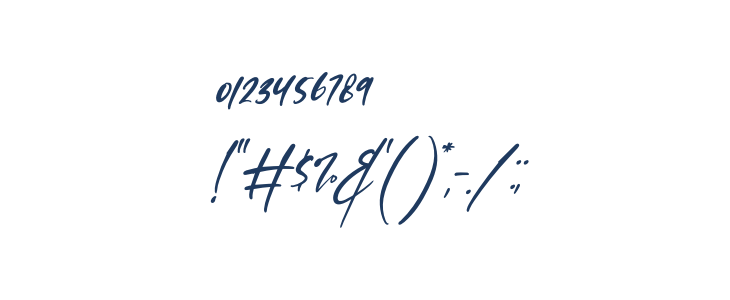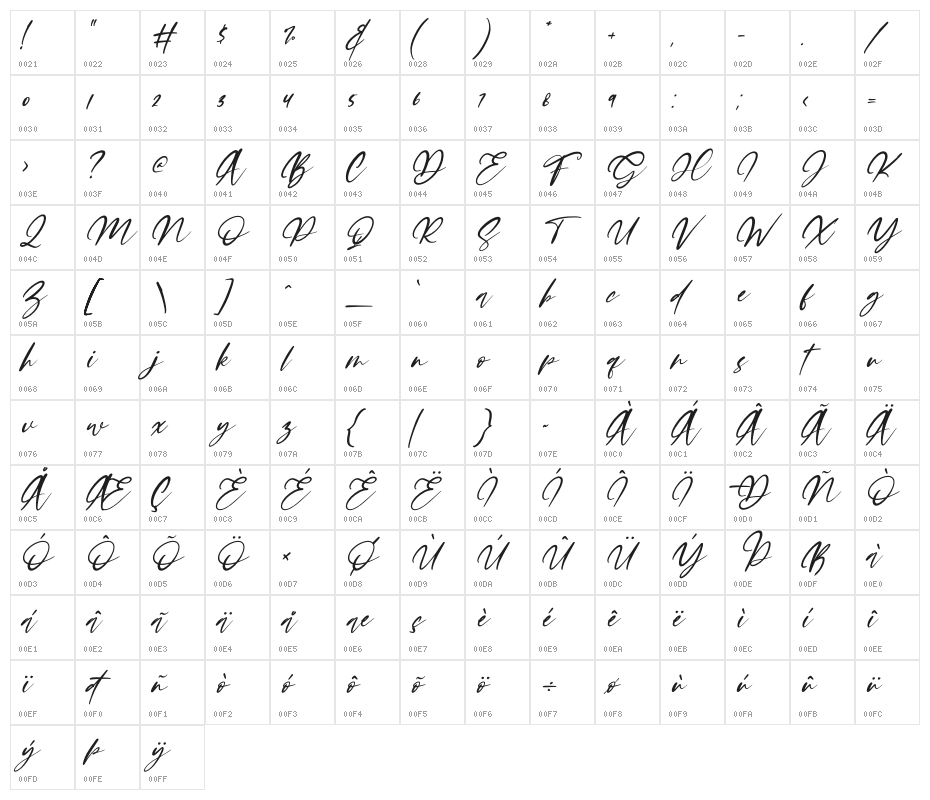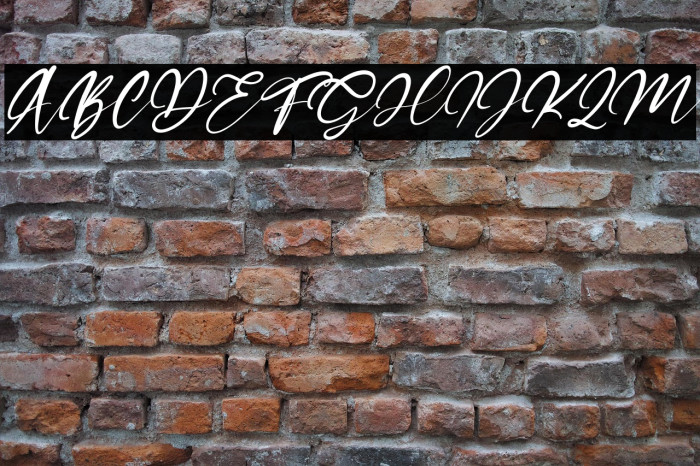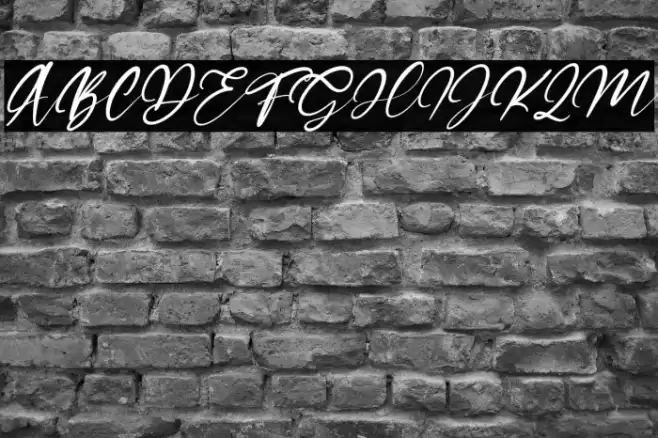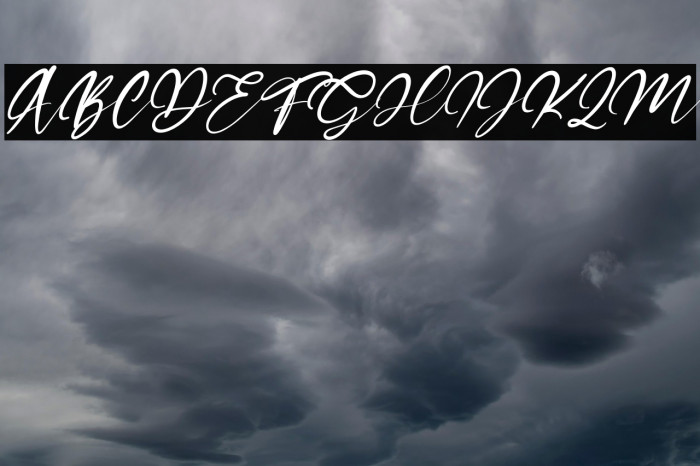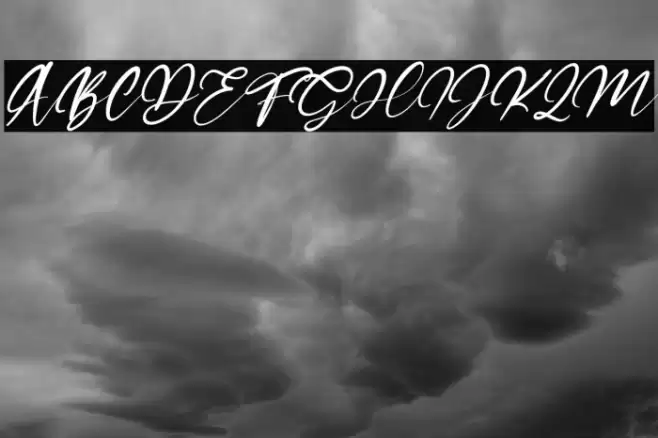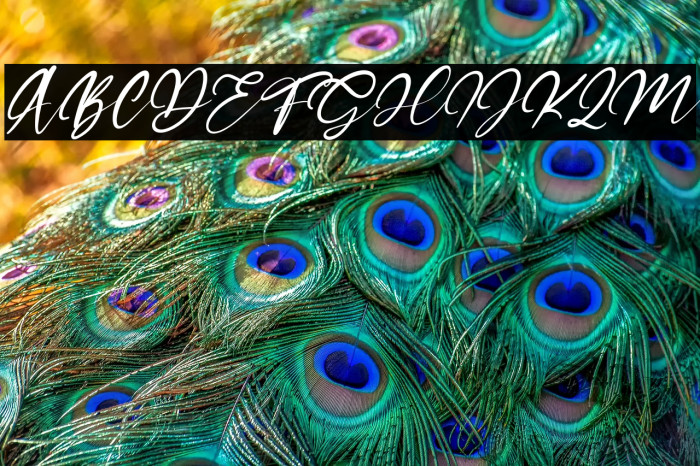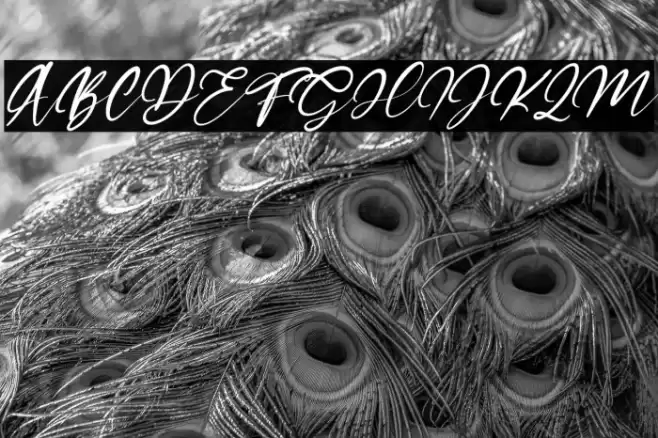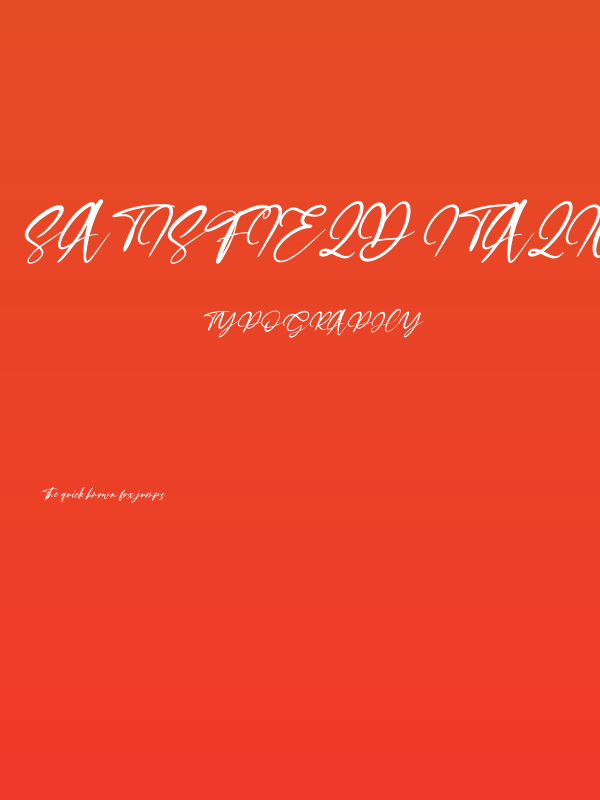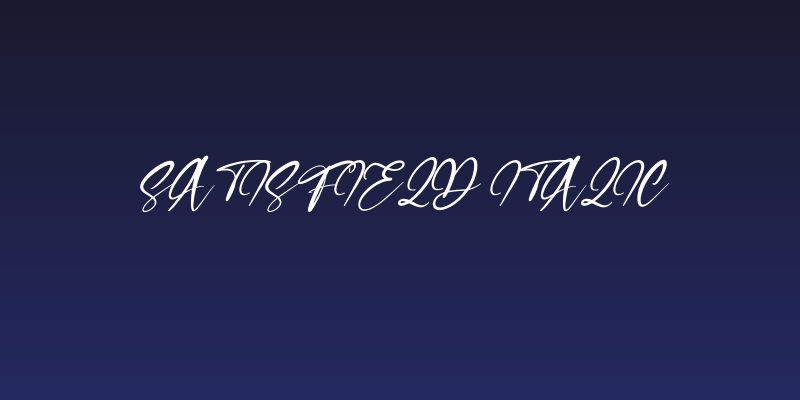
Satisfield Italic Font
Satisfield Italic Description
This font features a dynamic and fluid script style, characterized by its elegant and flowing letterforms. The strokes are smooth and connected, giving it a handwritten appearance that is both sophisticated and approachable. The uppercase letters are bold and prominent, while the lowercase letters maintain a consistent rhythm and flow. The numerals and special characters complement the overall style, ensuring versatility in various design contexts. The italic slant adds a sense of movement and grace, making it suitable for projects that require a personal touch.